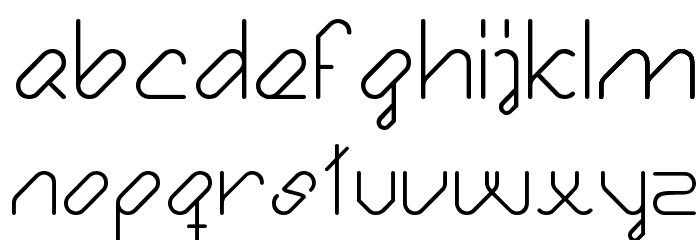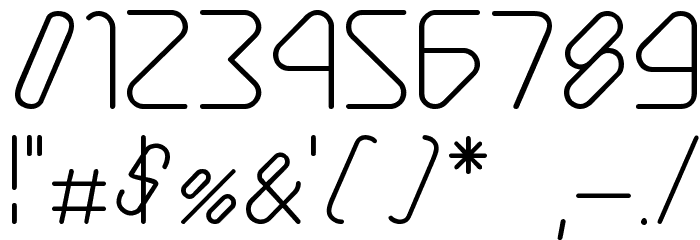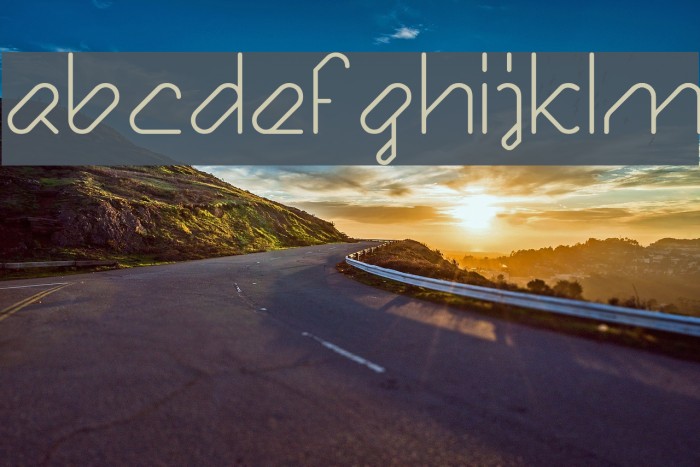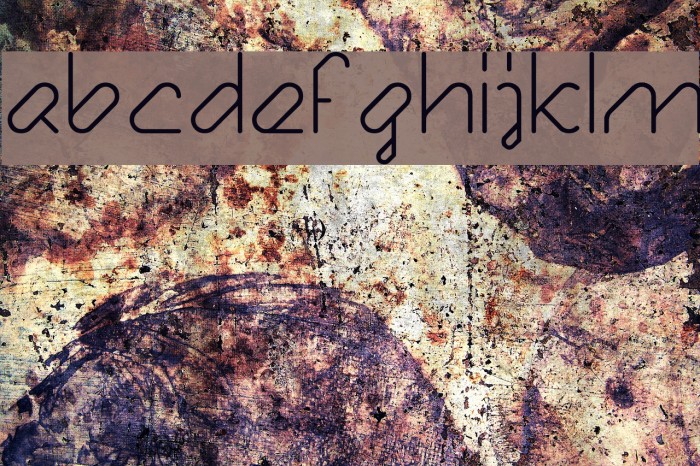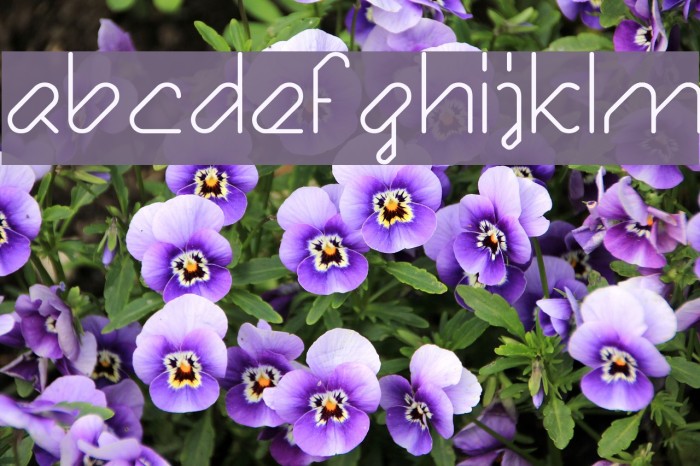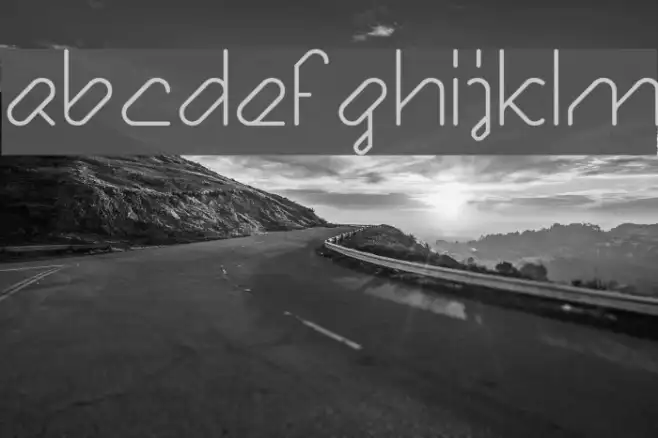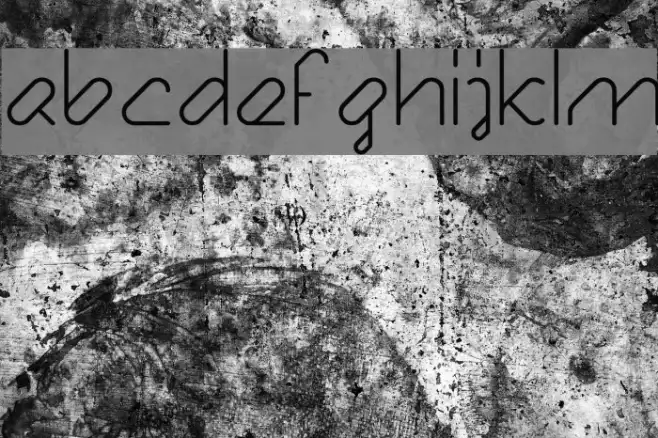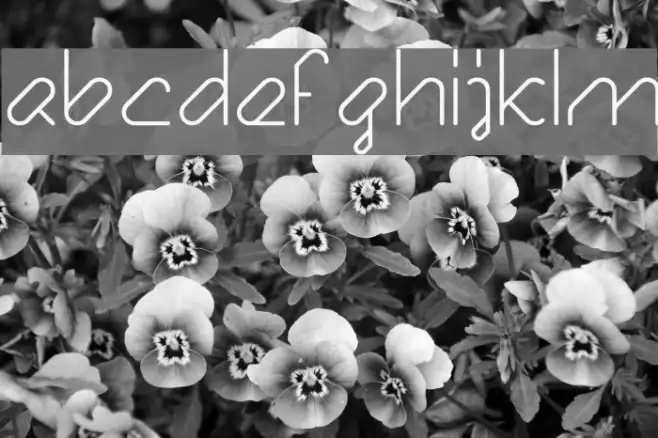
Bule Font
This font features a modern, geometric design with a monolinear stroke that gives it a clean and minimalist appearance. The characters are constructed with rounded edges and consistent line thickness, creating a harmonious and balanced look. The uppercase and lowercase letters maintain a uniform style, enhancing readability while adding a touch of elegance. Numbers and special characters follow the same design principles, ensuring a cohesive visual identity across all elements. The font's simplicity and clarity make it suitable for a variety of applications, from digital interfaces to print media.
A modern, geometric font with monolinear strokes and rounded edges.
- Proposed Projects: Ideal for tech branding, digital interfaces, minimalist posters, and modern packaging designs.
- Use Case: Headlines, Logos, Digital Interfaces